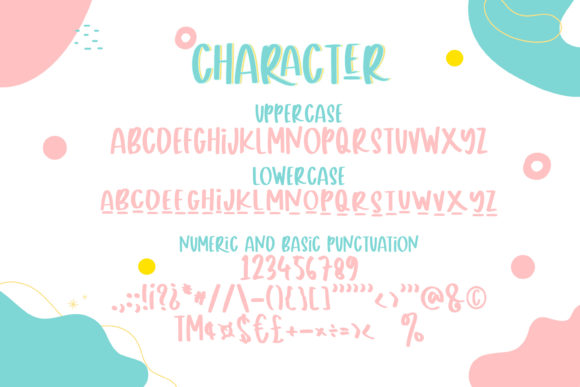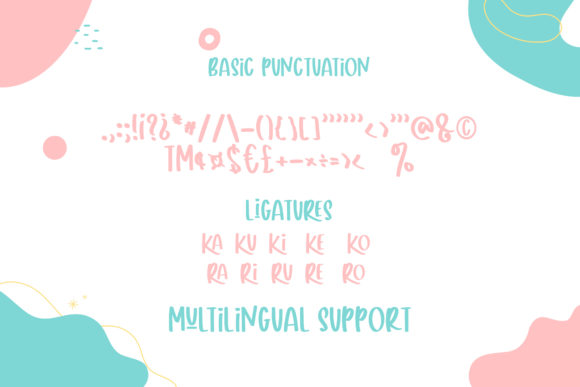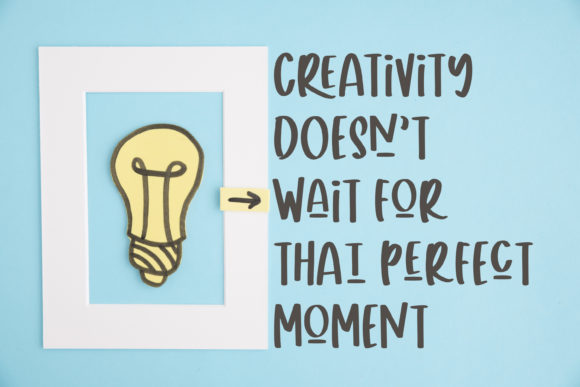
Introduction to Oredo Font
Have you ever stared at a blank canvas, desperately searching for the perfect design element to bring your creative project to life? We’ve all been there – the frustration, the anticipation, and the excitement of watching our ideas take shape. For designers, this moment is a defining moment that separates a good design from a great one.
That’s where the Oredo Font comes in – a joyful and cool handwritten font that has the potential to elevate your designs to new heights. Whether you’re working on a children’s themed design or simply need a unique touch, this versatile font is sure to impress. With its high-quality design and transparent background, the Oredo Font is a valuable resource for designers looking to add a personal touch to their projects.
Oredo Font
- Designed with a unique, modern aesthetic, setting it apart from other fonts in the market.
Honest Review: Oredo Font
As a designer, I’m always on the lookout for high-quality design resources that can elevate my creative projects. Recently, I came across the Oredo Font, and I’m excited to share my honest review.
- Unique and elegant design aesthetic: The Oredo Font boasts a distinctive and sophisticated look that can add a touch of class to any project.
- Limited character set: The Oredo Font has a relatively small character set, which may be a limitation for designers who require a more comprehensive font library.
Overall, the Oredo Font is a solid addition to any designer’s toolkit. While it has some limitations, its unique design aesthetic and high-quality vector files make it an excellent choice for creative projects. If you’re looking for a free design resource that can add some sophistication to your work, the Oredo Font is definitely worth checking out.
Tips for Getting the Most Out of Oredo Font
Oredo Font is ideal for a variety of creative projects, including logos, brochures, business cards, and presentations. Its high-quality design and transparent background make it easy to use in a range of applications, from print to digital design.